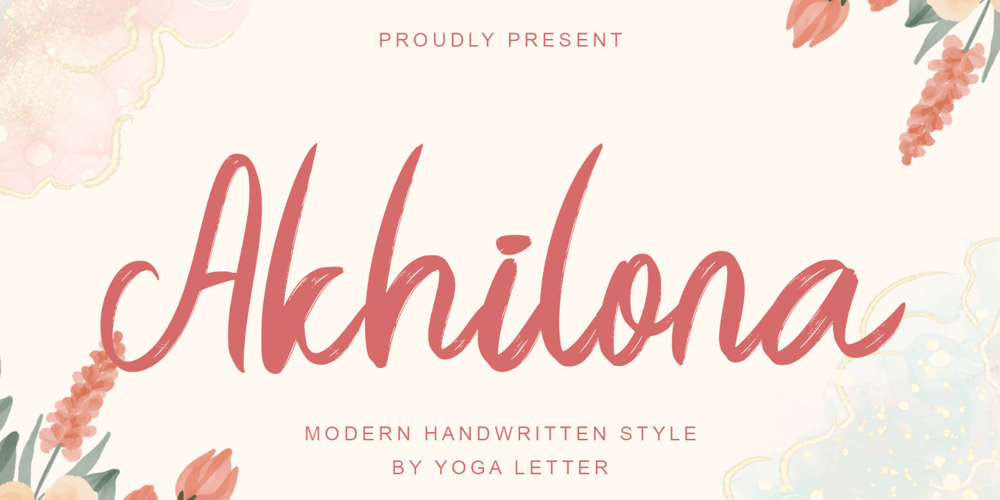
Akhilona Font Family was designed by Isroni Yoga Prasetya and published by Yoga Letter. Akhilona contains 1 styles and family package options. “Akhilona” is a very elegant and aesthetic handwritten brush font. This font is equipped with uppercase, lowercase, numerals, punctuation, and multilingual support. It is suitable for weddings, engagements, birthdays, photography, back to school, Christmas, parties, invitations, and others.